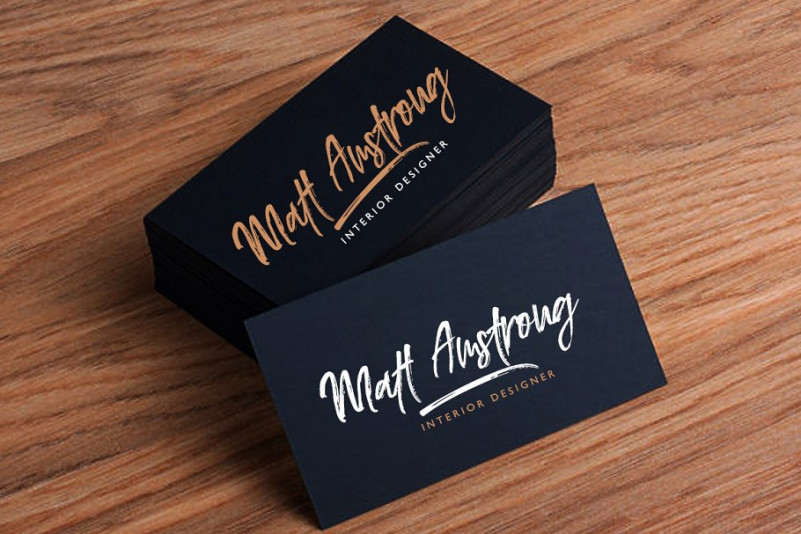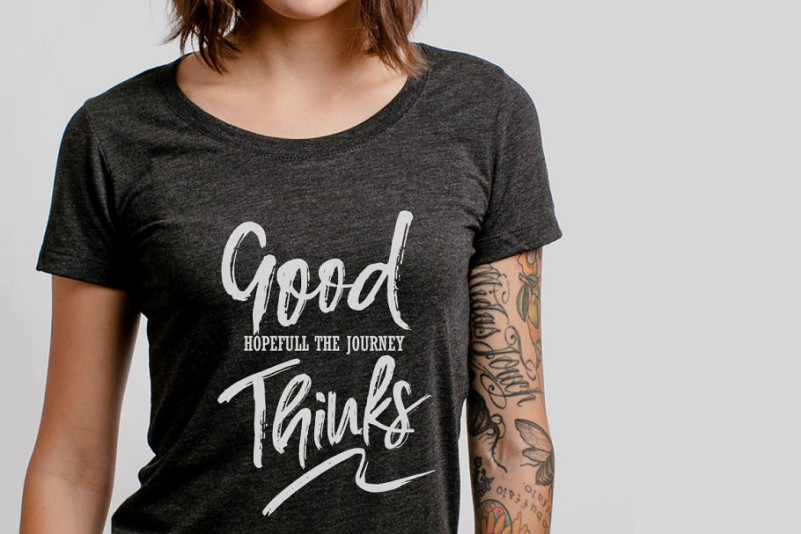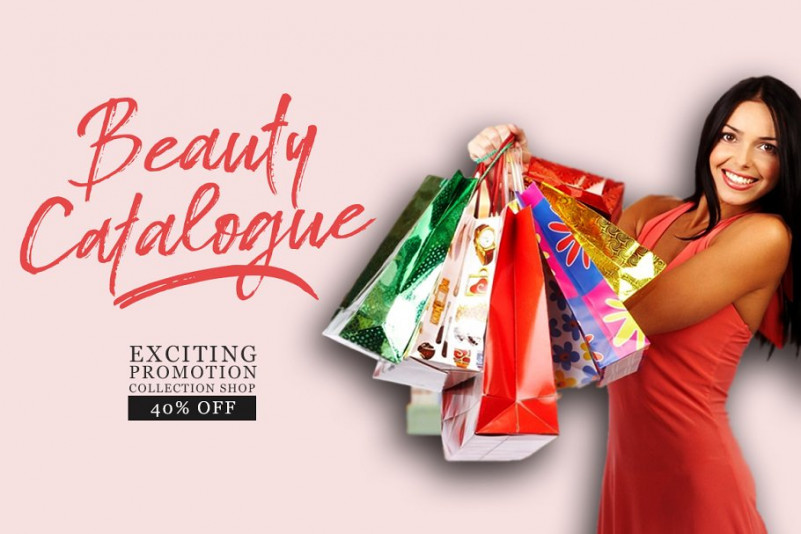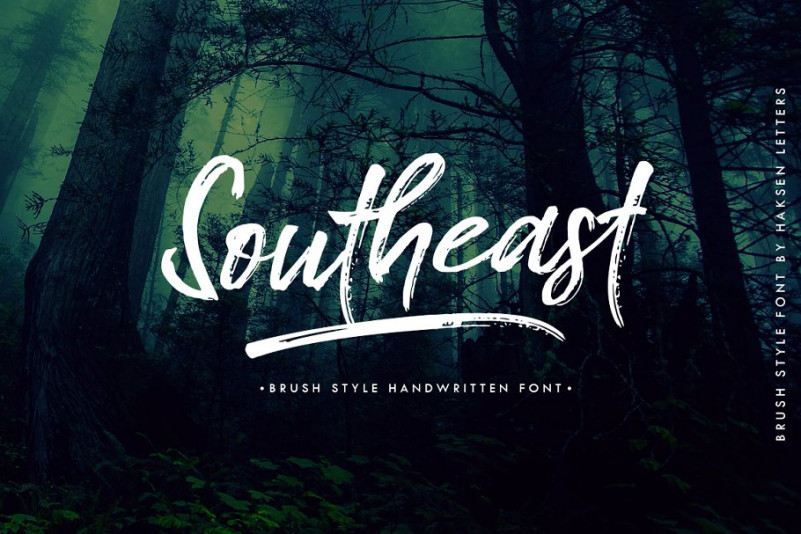
Southeast Brush Font
I am happy to present you a modern brush font. Give your designs an authentic brush handcrafted feel. Work great for any design needs! Introducing Southeast Font. “Southeast Brush Font” The new fresh handmade brush script font. Very suitable for greeting cards, branding materials, business cards, quotes, posters, and more! This font are perfect for all brand 🙂